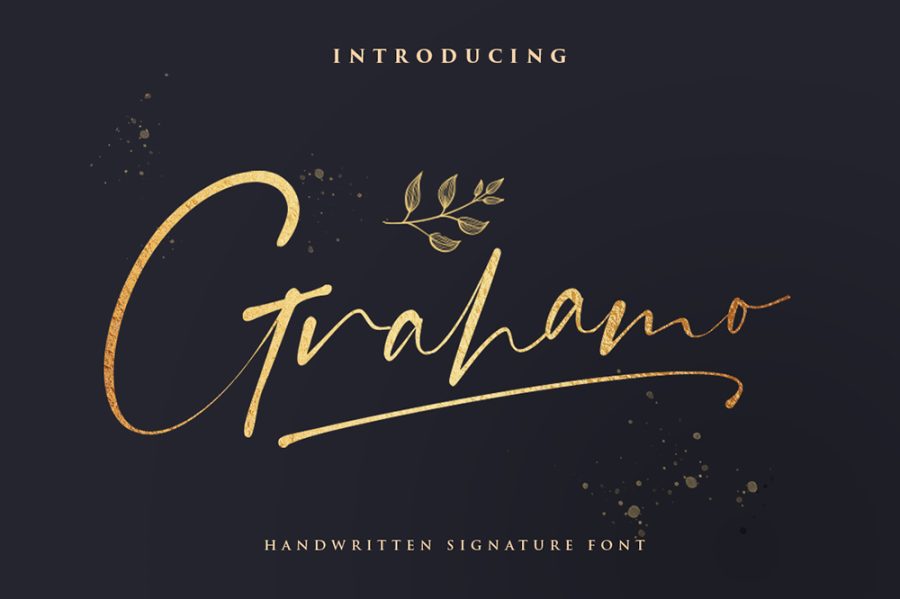
Grahamo – Luxury Script Font
Grahamo – Luxury Script Font is a luxury script with modern style, beautiful ligature, and alternate font. It is useful for magazines, movies, books, For Photography, Wedding Invitation, and many more. Grahamo – Luxury Script Font is a very friendly font that helps you to make your project look more professional. So, if you like this font don’t forget to donate a buck or how much you want.